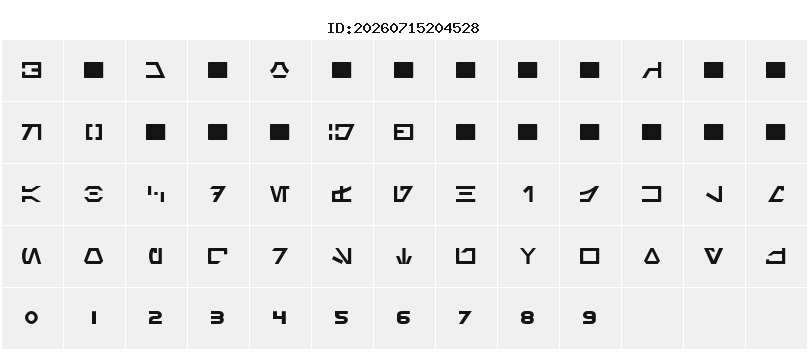
Aurebesh Preview
• Font Name: Aurebesh
• Full Font Name: Aurebesh
• PostScript Name: Aurebesh
About Aurebesh.ttf
Aurebesh.ttf is a modern, elegant sans-serif font designed for ultimate readability and visual harmony. Perfect for branding, headlines, web design, and print materials.